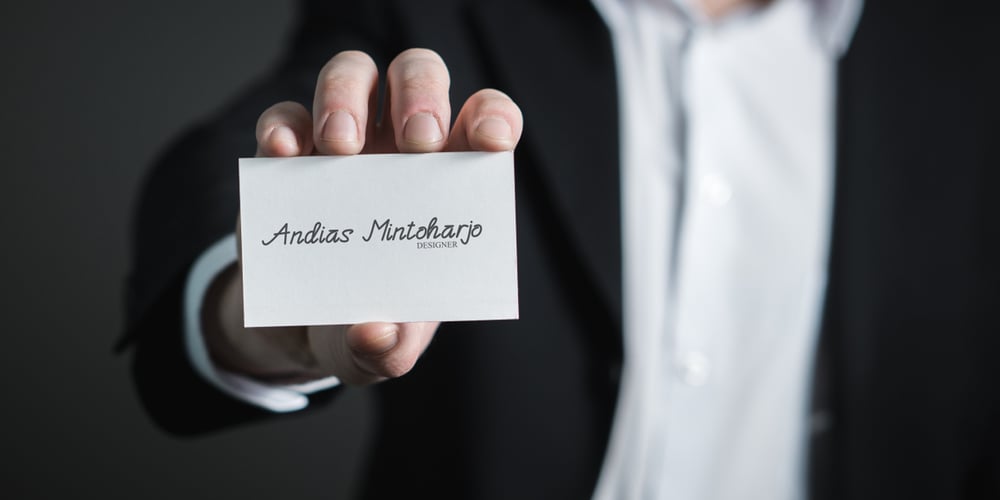
Enphand Font Family was designed by Rohmat Sidiq Mustaqim and published by Dieza Design. Enphand contains 1 styles and family package options. Enphand is a stylish and easy handwritten font with a contemporary touch. This will add a unique spin to each design project!